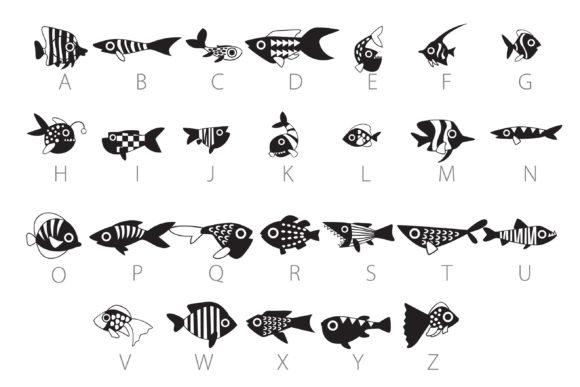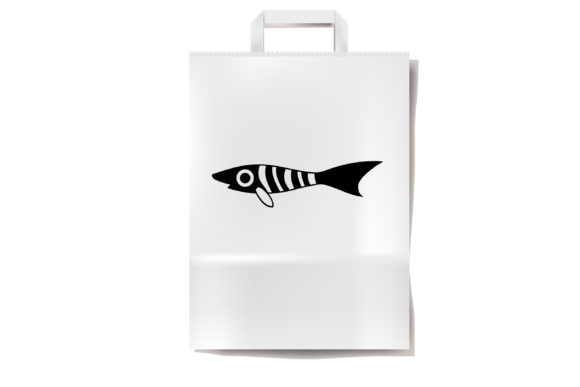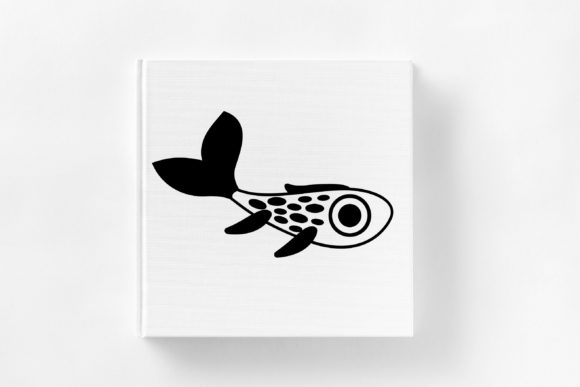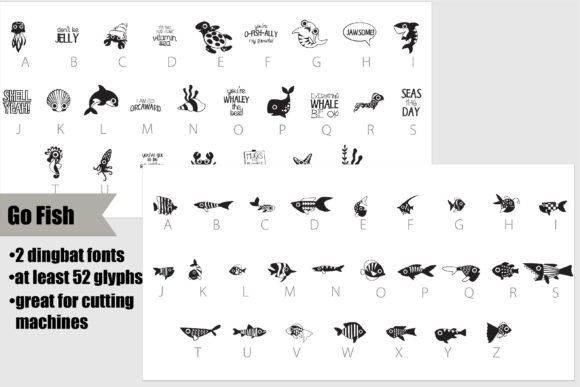
Go Fish Font
About Go Fish Font
The Go Fish bundle offers two playful and versatile dingbat fonts that will bring a touch of aquatic fun to your designs. With multiple glyphs available in each font, they are perfect for use with vinyl and cutting machines, allowing you to create charming projects related to fish and undersea creatures.
The first dingbat font in the bundle is dedicated to fish. It includes a variety of fish-themed glyphs, featuring different species, shapes, and patterns. These glyphs can be used individually or combined to create captivating compositions. Whether you’re designing a fishing-themed logo, creating a poster for a seafood restaurant, or embellishing a scrapbook page about a memorable fishing trip, these fish-inspired glyphs will add a playful and aquatic vibe to your designs.
The second dingbat font in the bundle focuses on undersea creatures and puns. It includes a collection of whimsical glyphs featuring a mix of adorable sea creatures, such as dolphins, starfish, seahorses, and more. Additionally, it incorporates puns and wordplay related to the ocean, providing a fun and lighthearted element to your designs. These glyphs are perfect for adding a touch of humor and personality to greeting cards, children’s books, party decorations, or any project where you want to create a delightful underwater world.
Both fonts in the Go Fish bundle are optimized for use with vinyl and cutting machines, ensuring precise and clean cuts for your designs. This makes them ideal for creating vinyl decals, stickers, signs, or any other projects where you want to showcase the charming aquatic themes.
When using these dingbat fonts, explore the possibilities of combining different glyphs to create unique compositions. Experiment with colors, layering techniques, and textures to bring your designs to life. Whether you’re working on crafts, home decor, or any other aquatic-themed project, these fonts offer a wide range of options to add a touch of underwater whimsy.
In summary, the Go Fish bundle provides two dingbat fonts that cater to fish and undersea creatures, including puns and wordplay. With their playful and charming aesthetics, these fonts are perfect for vinyl and cutting machines, enabling you to create delightful designs for various applications. Whether you’re working on personal projects, crafting items for children, or adding a touch of marine-inspired fun to your designs, the Go Fish bundle is a fantastic resource to bring the aquatic world to life.